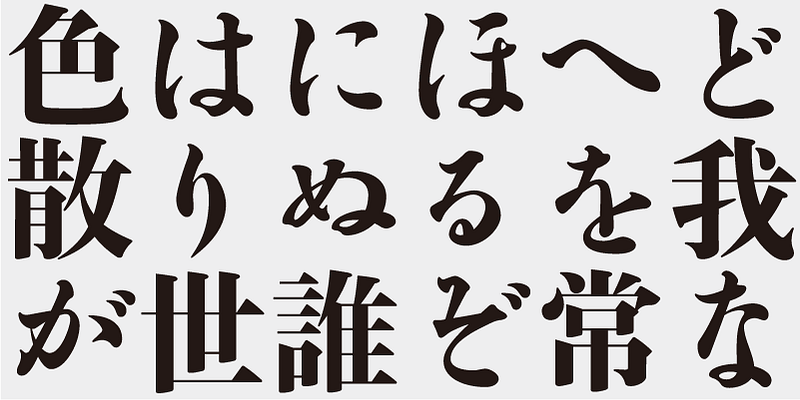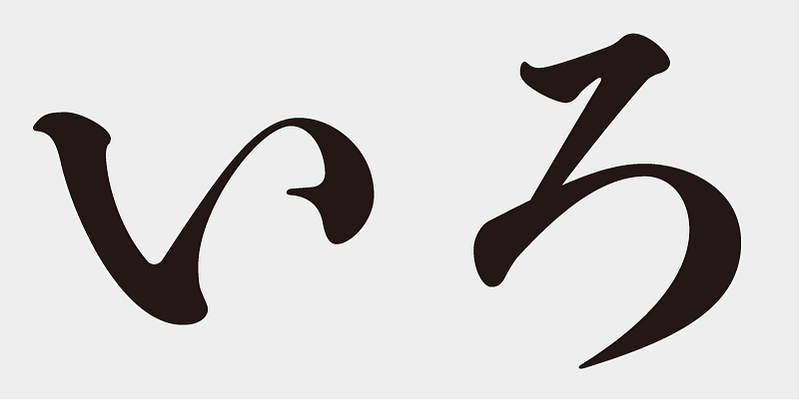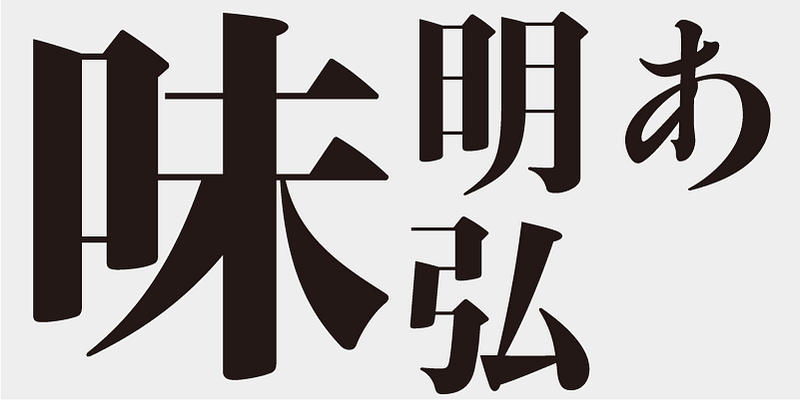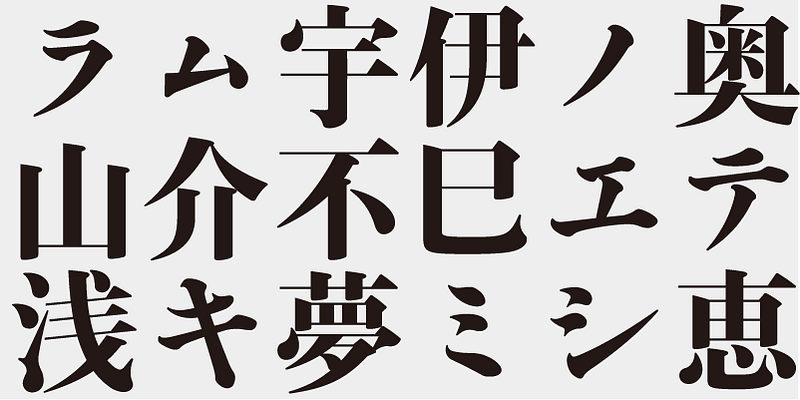
Although Ajimin has the flavor of hot metal type, it is not intended to be a revival, but a new typeface for display purposes. Like Bodoni, its vertical strokes are clear and heavy and its horizontal strokes are precise and thin. Its elements possess strength and stability.
Ajimin Modern’s elements are more sharply designed than those of Ajimin – the start and finish of vertical strokes are lowered for increased sharpness, and the horizontal strokes are cut vertically at the start and are thinner with a uniform width. Ajimin Modern is a sharp and elegant Mincho-style typeface.
This typeface is designed to be used in larger type sizes (for posters, for example), although it’s legible in smaller sizes. As the type size increases, the elegance of each stroke element becomes more visible.
According to historical records, the Koudouken-Shincho-tai typeface was created in the early Meiji period, when Masayoshi Kanzaki first thought of creating a brush-script typeface, Shouzan Komuro, a calligrapher, wrote the characters, and Munenori Oyamada engraved the steel punches.
The design had was strong and masculine and it stands as one of the greatest masterpieces in Japanese hot metal typeface design. As time went on, the typeface was used less frequently. In 1984, I tried to revive its letter-form structure in the Mincho-style and released the Koudouken kana typeface as one of the Ajioka Shintaro Kana Series for phototypesetting. I have redesigned it again as Ajimin Modern Ko/EB, using Ajimin’s kanji characters.
Ajimin has the flavor of hot metal type and, like Bodoni, its vertical strokes are clear and heavy and its horizontal strokes are precise and thin. Its elements possess strength and stability. Ajimin is a unique Mincho-style display typeface. Ajimin Modern’s elements are more sharply designed, but that sharpness is balanced by the richness and elegance of the design. Ajimin’s biggest feature is its 10 kana variations, ranging from running-hand-like designs, to revivals of designs from the age of hot metal type, to modern style kana. These variations make Ajimin useful for a wide range of purposes.